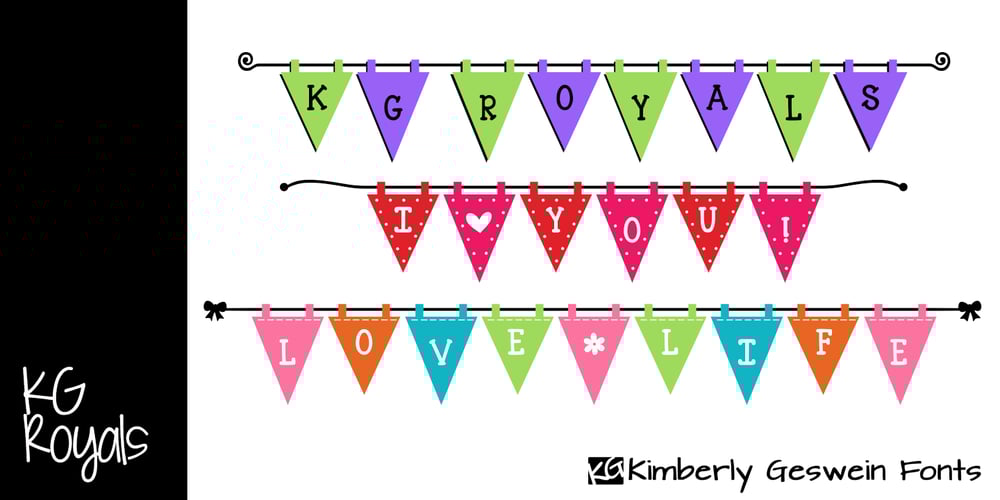
KG Royals Font Family was designed by Kimberly Geswein and published by Kimberly Geswein. KG Royals contains 1 styles and family package options. Fun bunting style lettering. Best when used with multiple layers to create a stacked, dimensional look. Use () {} [] to create end pieces and _ (underscore) to connect the end pieces.